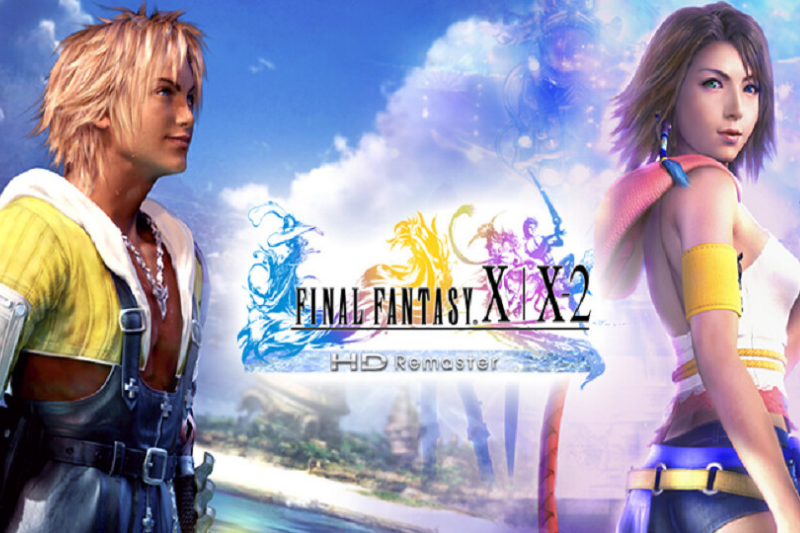
Final Fantasy Font Generator
About the Final Fantasy Font Generator
Final Fantasy's typography is as iconic as its legendary music and world-building β€” elegant, fantasy-forward lettering that has evolved through dozens of titles while always maintaining a sense of epic adventure. The Final Fantasy font generator lets you channel that distinctive style for fan art, gaming profiles, and fantasy-themed creative projects.
• Final Fantasy fan art posters and tribute graphics
• Gaming channel logos and streaming overlays
• Tabletop RPG campaign materials and custom cards
• Cosplay event badges and convention signage
• Social media content for JRPG and anime fans